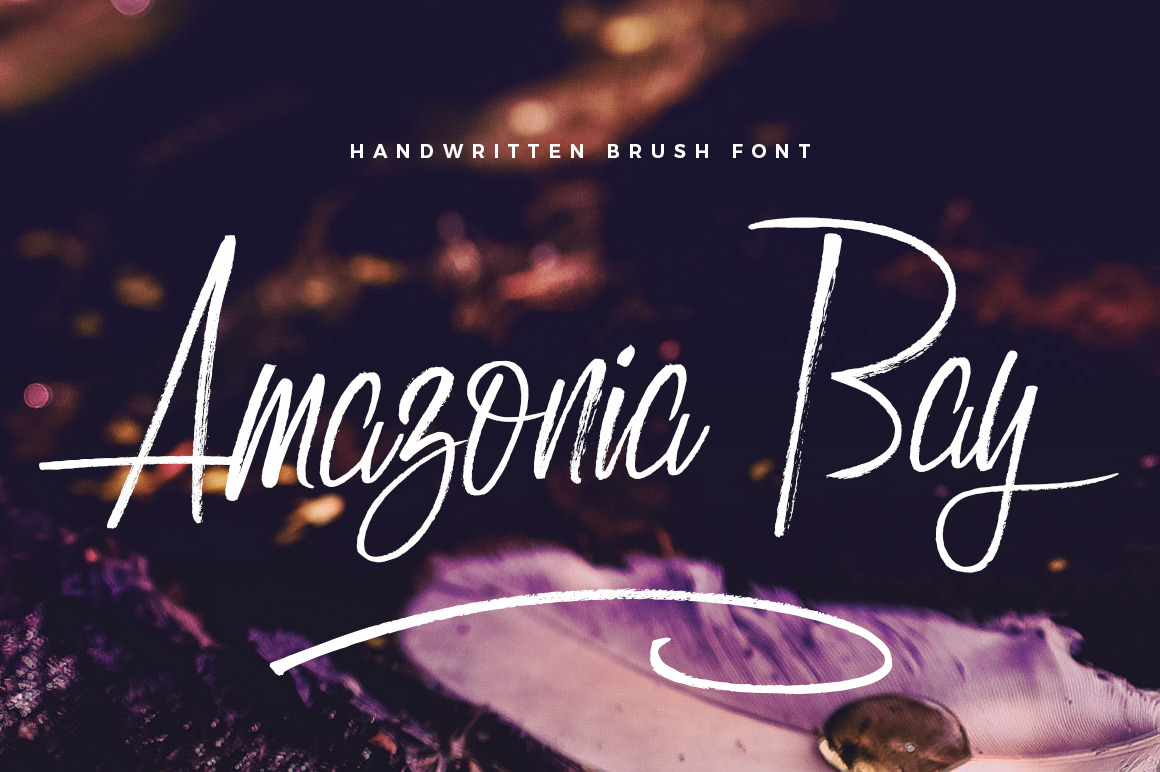
Amazonia Bay Font
Amazonia Bay is hand brushed font with multilingual support. Is ideal for restaurant menus, greeting cards, invitations, weddings, headers and many more.
This brush font comes with a complete set of lowercase and uppercase characters, ligatures and and multilingual support.
Amazonia Bay Swatches - a set of 26 hand drawn swatches for text decoration